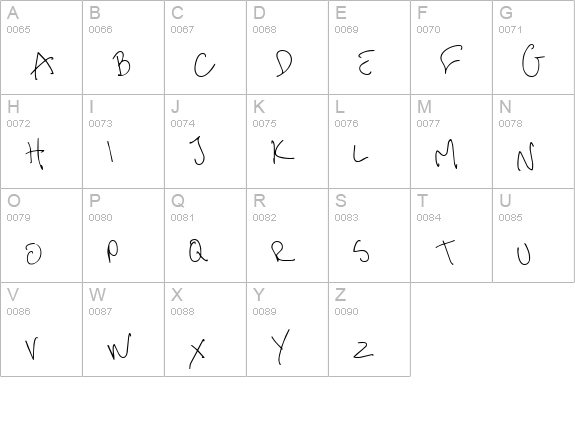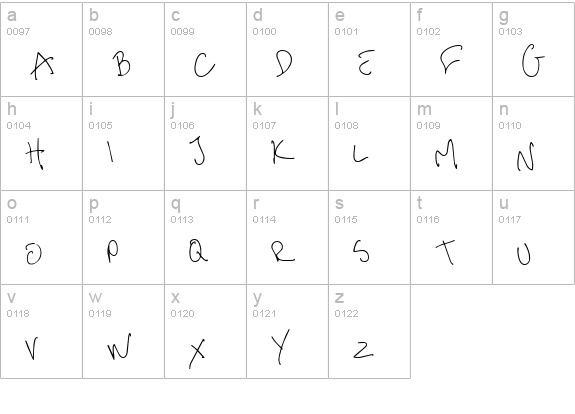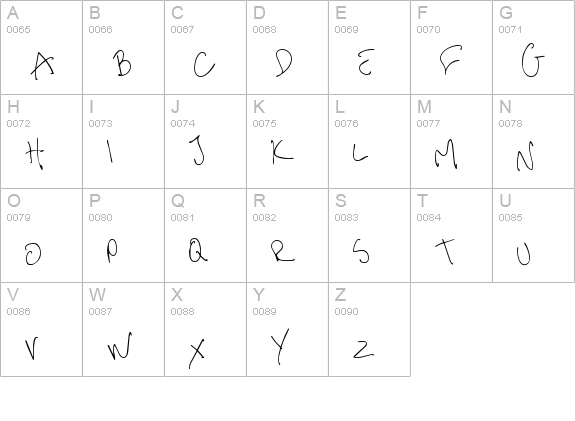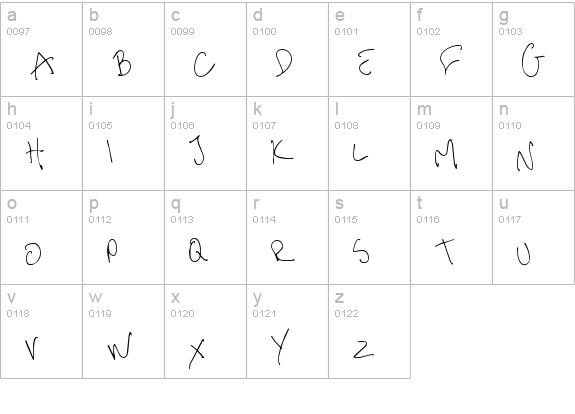
me handwritin Thin Font Details
me handwritin Thin is a delicate, low-contrast variant in the me typeface family \xE2\x80\x94 well suited to fashion editorial, minimal branding, and high-contrast display.
Discover the elegant and sophisticated beauty of Handwritin Thin font, a stunning typeface that exudes a sense of grace and charm. Its delicate strokes and graceful curves make it perfect for adding a touch of refinement to any design project. Whether you're working on invitations, branding materials, or social media graphics, Handwritin Thin font will bring a sense of elegance to your work. Best of all, this exquisite font is freely available to download at FontsMarket.com. Don't miss the opportunity to add this timeless typeface to your collection and elevate your designs to new heights. Download Handwritin Thin font today and let your creativity soar.